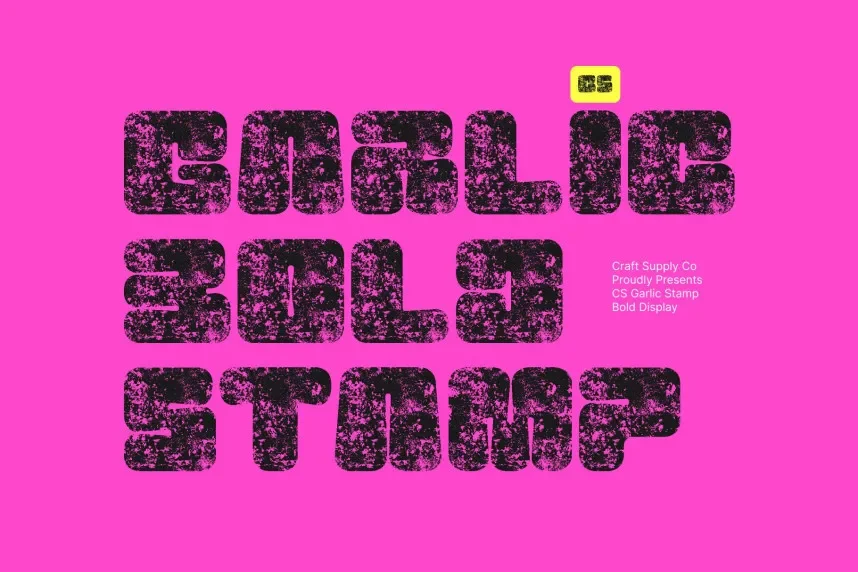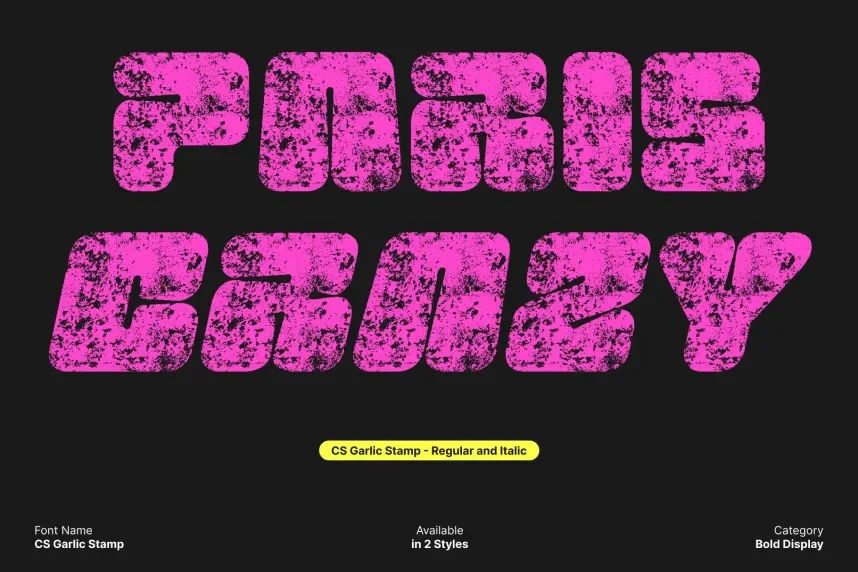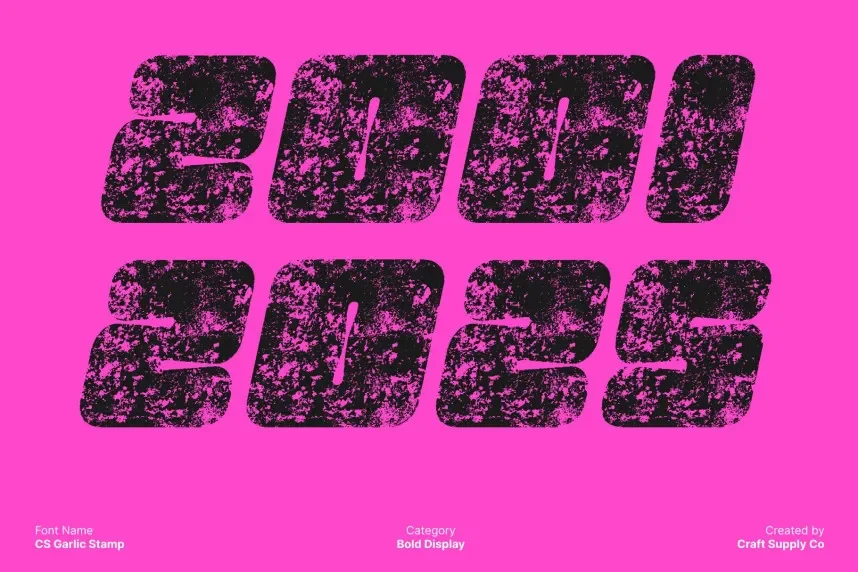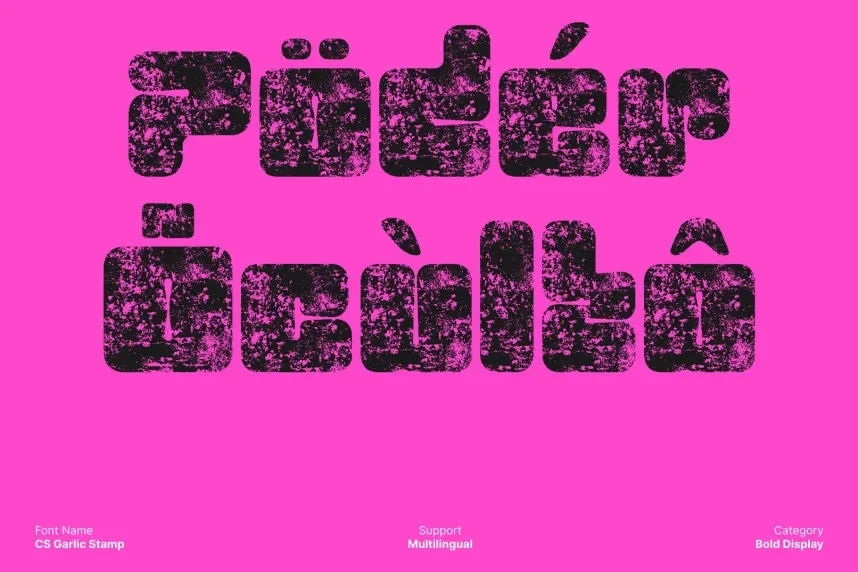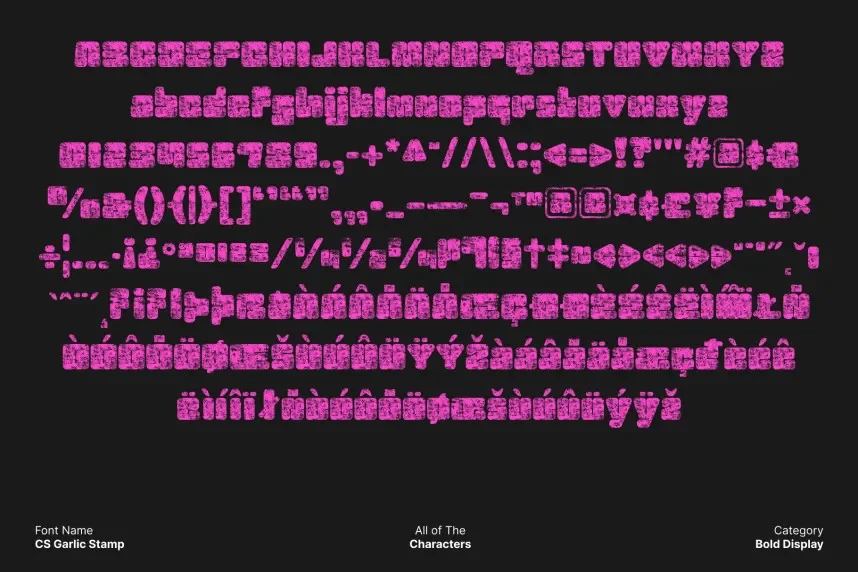
CS Garlic Stamp Font is a bold, serif typeface with a distinctive rough-edged appearance. Its strong, blocky letterforms make it ideal for projects that need a rugged, industrial feel such as branding, packaging, or marketing materials.
Perfect for headlines, logos, and promotional materials, CS Garlic Stamp Font works well with cleaner, more refined fonts for body text. The font is available in TTF and OTF formats and comes with a commercial-use license. Always check the licensing details for commercial use.